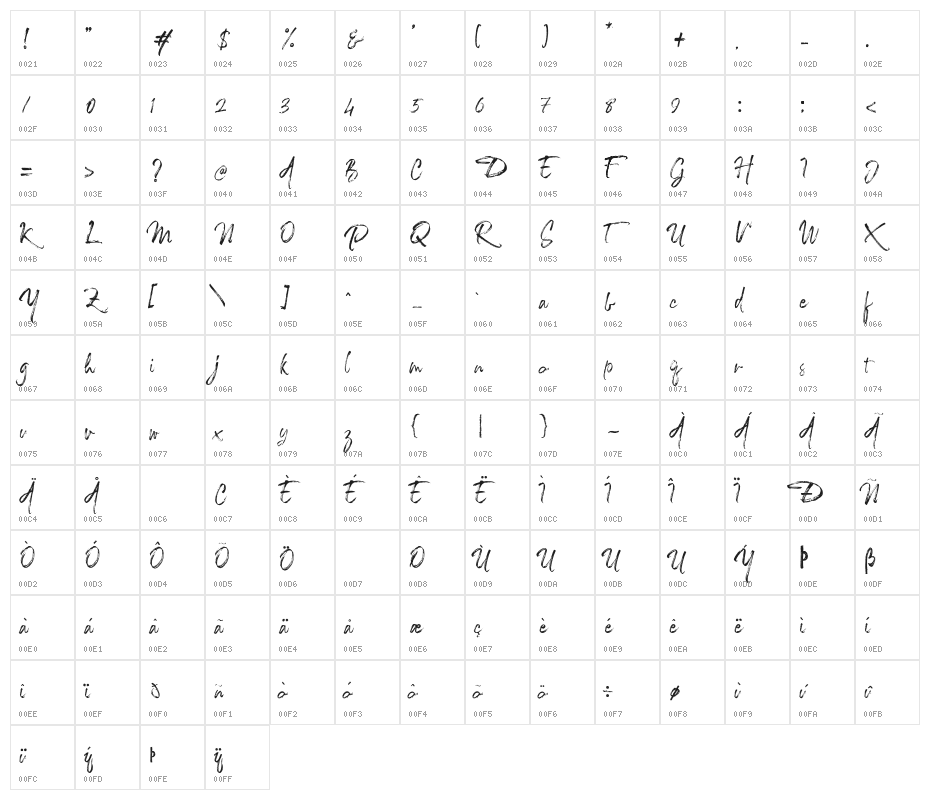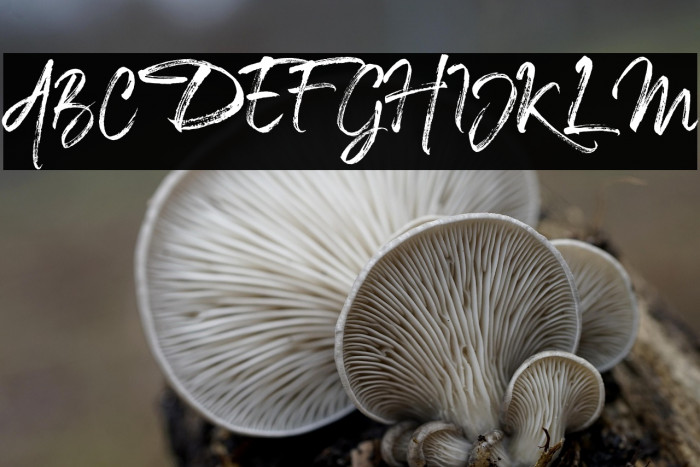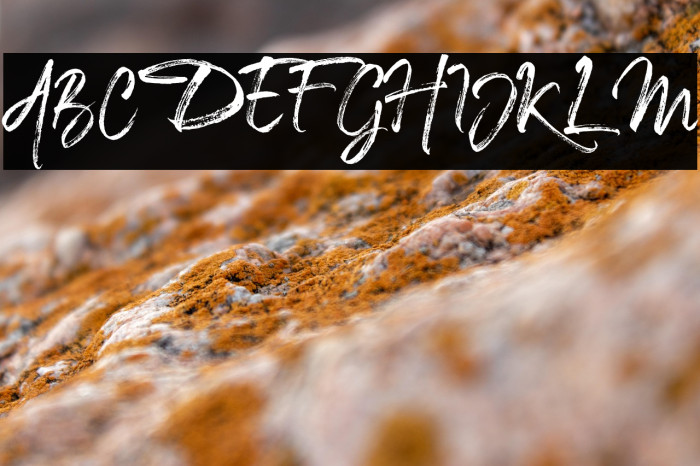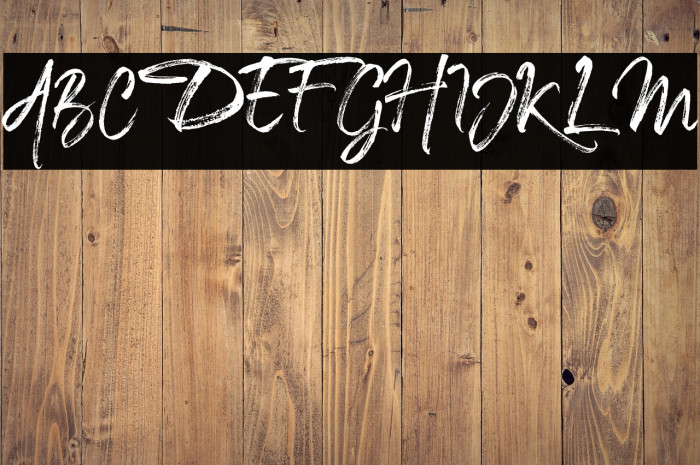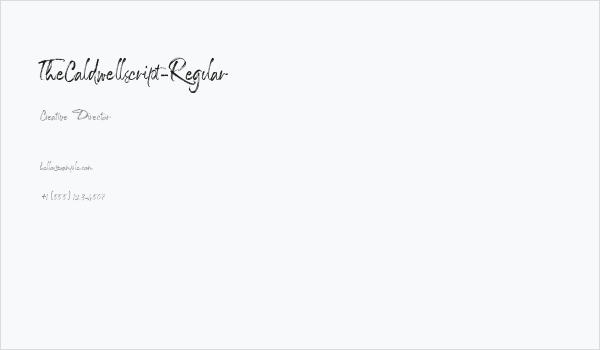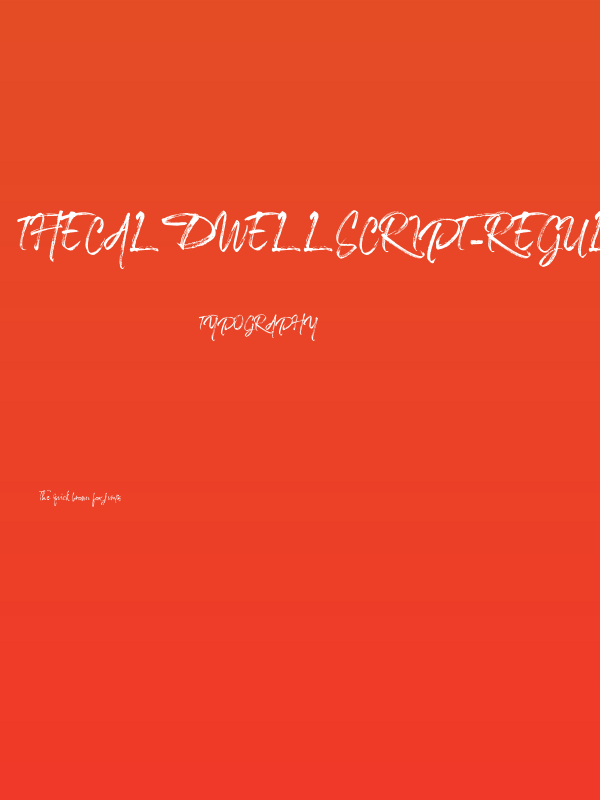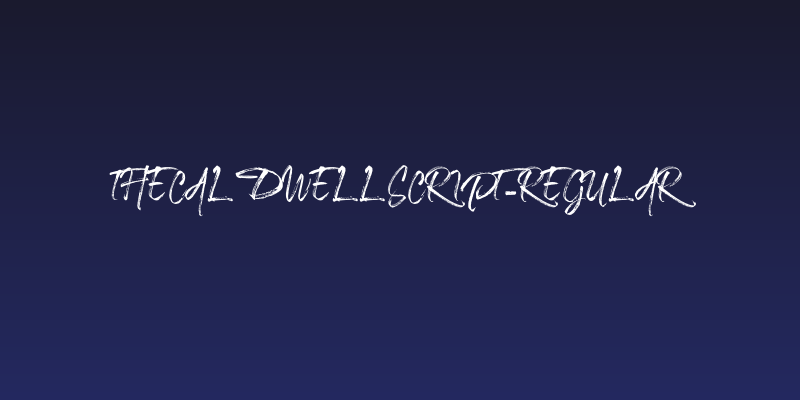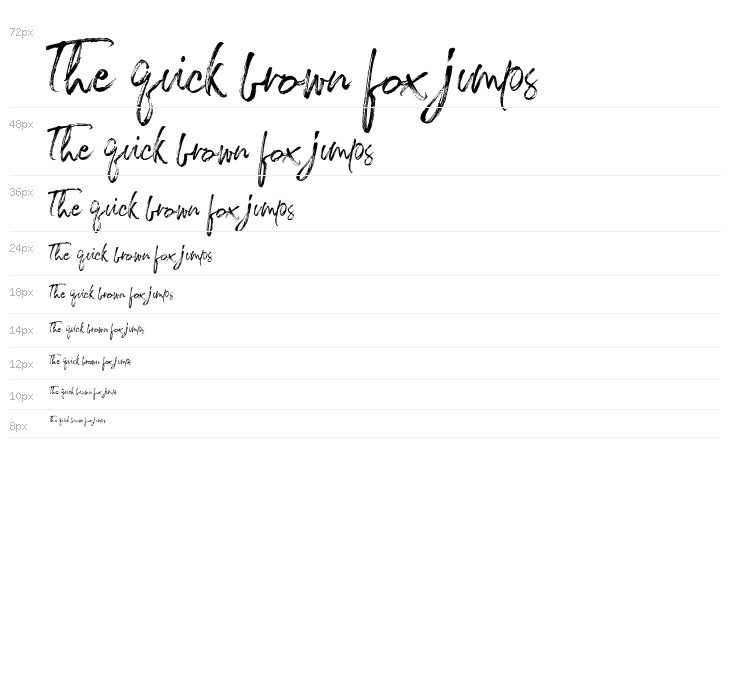
TheCaldwellscript-Regular Font
TheCaldwellscript-Regular Description
This script font exudes a dynamic and artistic flair, characterized by its fluid, brush-like strokes that convey a sense of movement and creativity. The uppercase letters are bold and expressive, with varying stroke widths that add a handcrafted feel. The lowercase letters maintain a consistent flow, enhancing readability while retaining an artistic edge. Numbers and special characters are designed with the same brush-like quality, ensuring a cohesive look across all elements. This font's unique style makes it ideal for projects that require a personal and artistic touch.
| Use Case | Logos, Headlines, Artistic projects |
| Proposed Projects | Ideal for branding, invitations, greeting cards, and artistic projects that require a personal touch. |